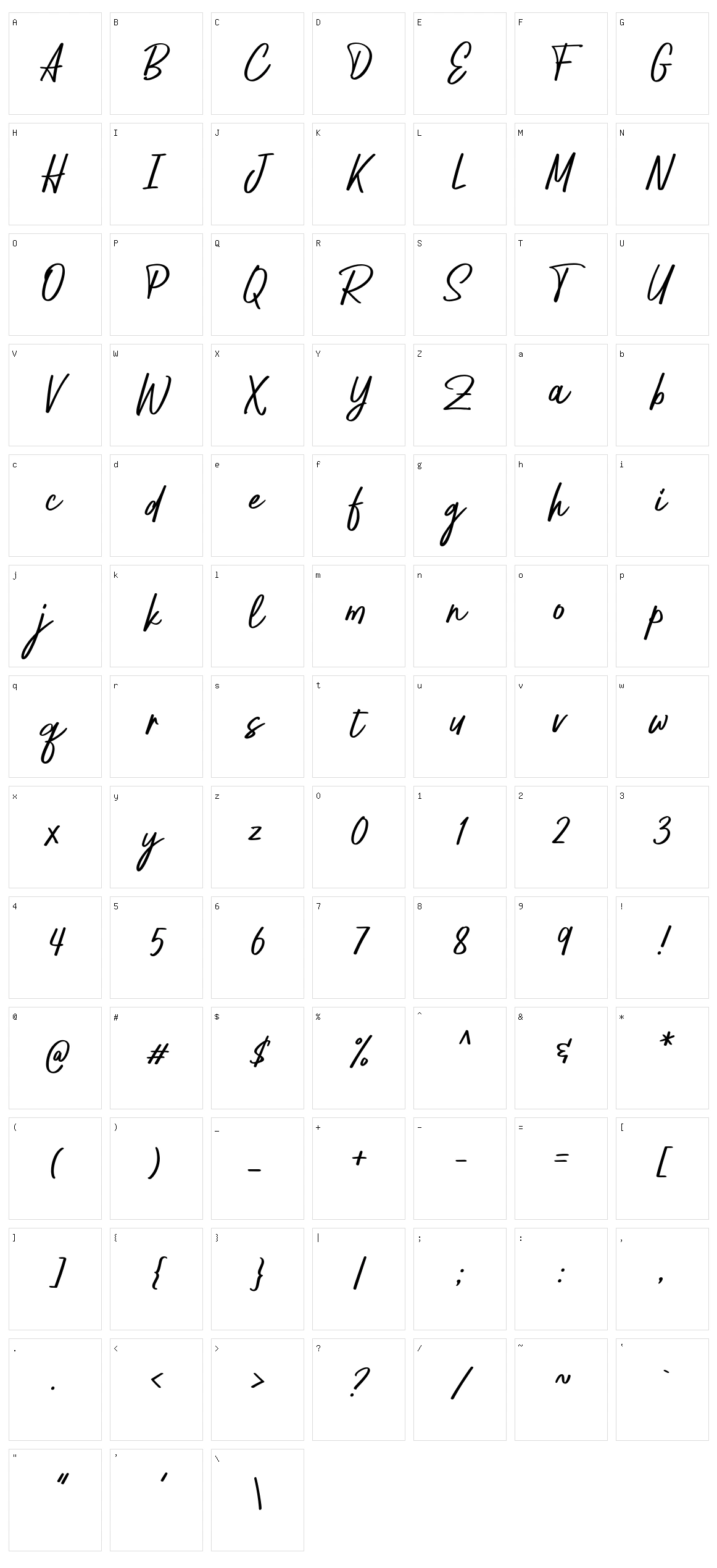
Pestapora - A cheerful and spontaneous handwriting font. Based on markers that are designed in such a way as to have an authentic and personal impression but are suitable to be applied to various design needs; posters, headline, logotype, packaging design, t-shirt, invitation etc.
Pestapora comes in two versions:
Pestapora Regular: a handwritten script font containing upper & lowercase characters, numerals, and a large range of punctuation.
Pestapora Alt: this is the second version of Pestapora, with a completely new set of both upper and lowercase characters.